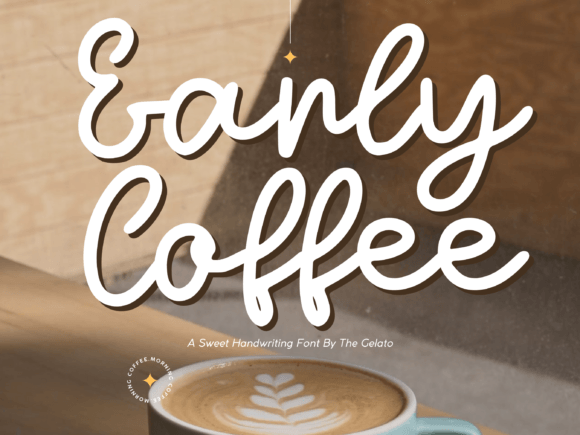
Journey into the world of Early Coffee Font, a captivating script font that exudes childlike innocence and playful charm. Handcrafted by The Gelato, this monoline beauty is designed to evoke the carefree spirit of youth, making it the perfect choice for projects that aim to connect with a younger audience.
Early Coffee Font is not just a collection of letters; it's an invitation to let your imagination soar. Its whimsical strokes and flowing lines add a touch of magic to any design, whether it's a whimsical children's book, a delightful cafe menu, or an enchanting invitation card.
With Early Coffee Font, you can:
- **Craft Enchanting Stories:** Unleash your creativity and weave captivating tales that transport readers to wondrous worlds, where dreams come alive.
- **Design Playful Logos:** Create logos that radiate joy and lightheartedness, leaving a lasting impression on your target audience.
- **Add a Touch of Whimsy to Your Designs:** Infuse your projects with a sense of whimsy and wonder, making them stand out from the crowd.
- **Capture the Magic of Childhood:** Bring the innocence and playful spirit of childhood to your designs, creating a connection with young hearts.
- **Create Memorable Invitations:** Design invitations that spark excitement and anticipation, ensuring that your events are remembered long after they've passed.
So, dive into the world of Early Coffee Font and let your creativity flourish. Let your designs dance with joy and enchantment, leaving a lasting impression on all who behold them.